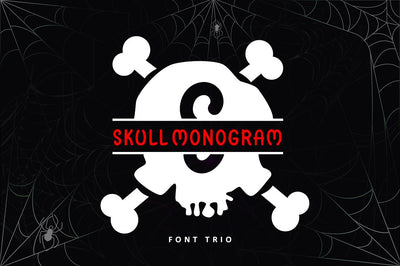
Skull Monogram - Font Trio For Halloween
Skull Monogram is an incredibly unique and spooky decorative font. Add it to each of your Halloween themed ideas, and notice how it makes them stand out!